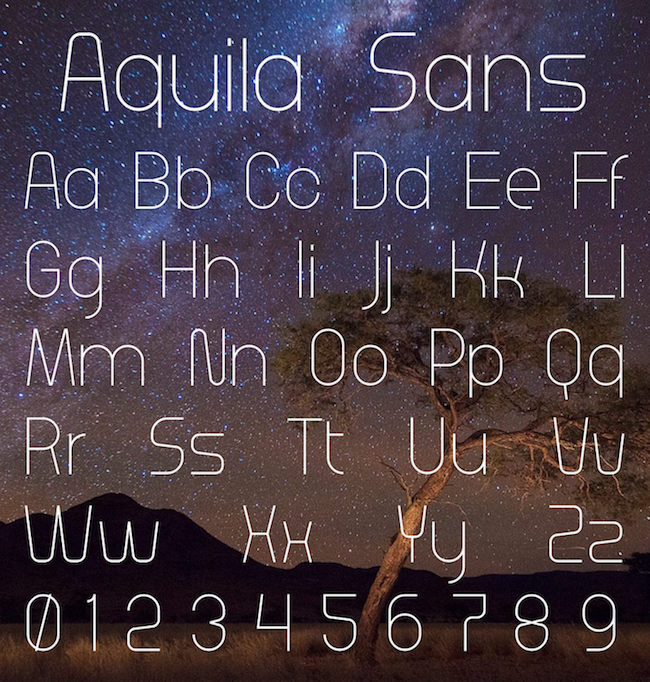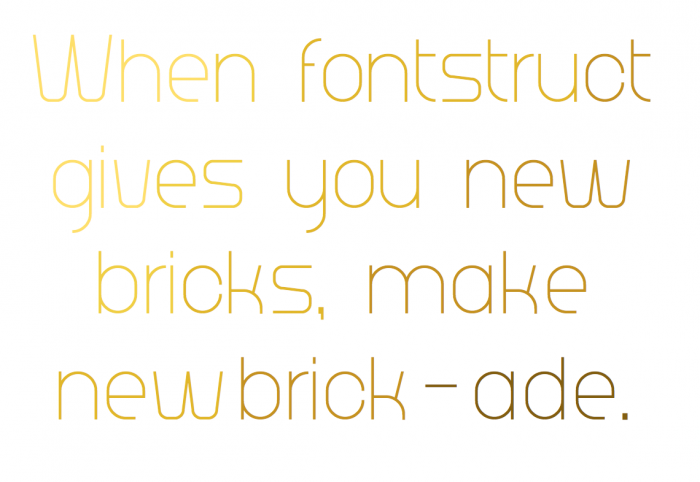
Beautiful. 10/10
Congratulations! FontStruct Staff have deemed your FontStruction worthy of special mention. “Aquila Sans” is now a Top Pick.
Excellent work.
You are missing accents. ( ͡° ͜ʖ ͡° )
No multilingual support?
I make most of my font's multilingual
Nice geometric font though